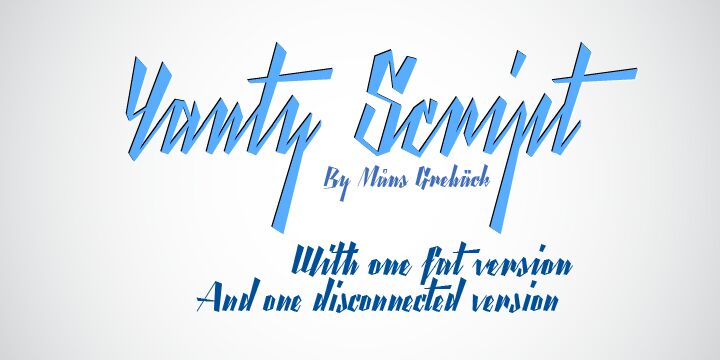
Yanty Script by Måns Grebäck is a free handwritten display font with a fierce, highly angular silhouette. Its letters swing between hairline strokes and broad black wedges, with abrupt turns that resemble quick cuts of a pointed pen. The baseline is restless and uneven.
It is strongest on music posters, where its slashing forms can give a band name or event title the force of a hand-drawn mark. The same jagged stroke pattern suits streetwear branding, horror packaging, and dark fantasy publishing, especially when the lettering is meant to echo lightning, thorns, or scratched illustration.